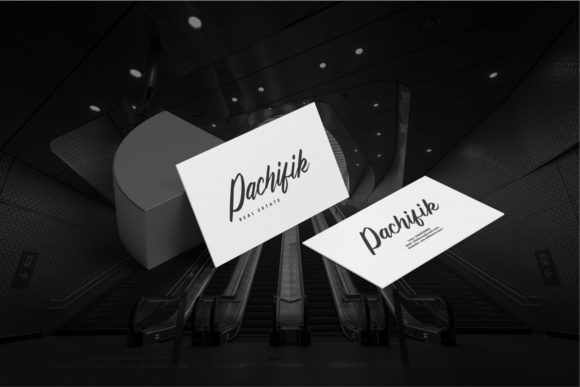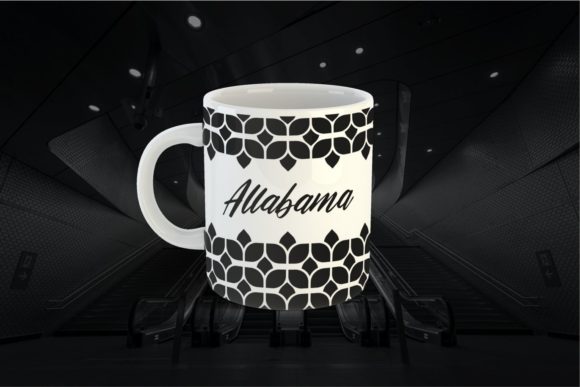
About Donttown Font
Donttown is a well balanced and delicate script font. Dainty and joyful, this font will be ideal for writing wedding invitations, cards or any other design that may need a romantic, personalized touch!